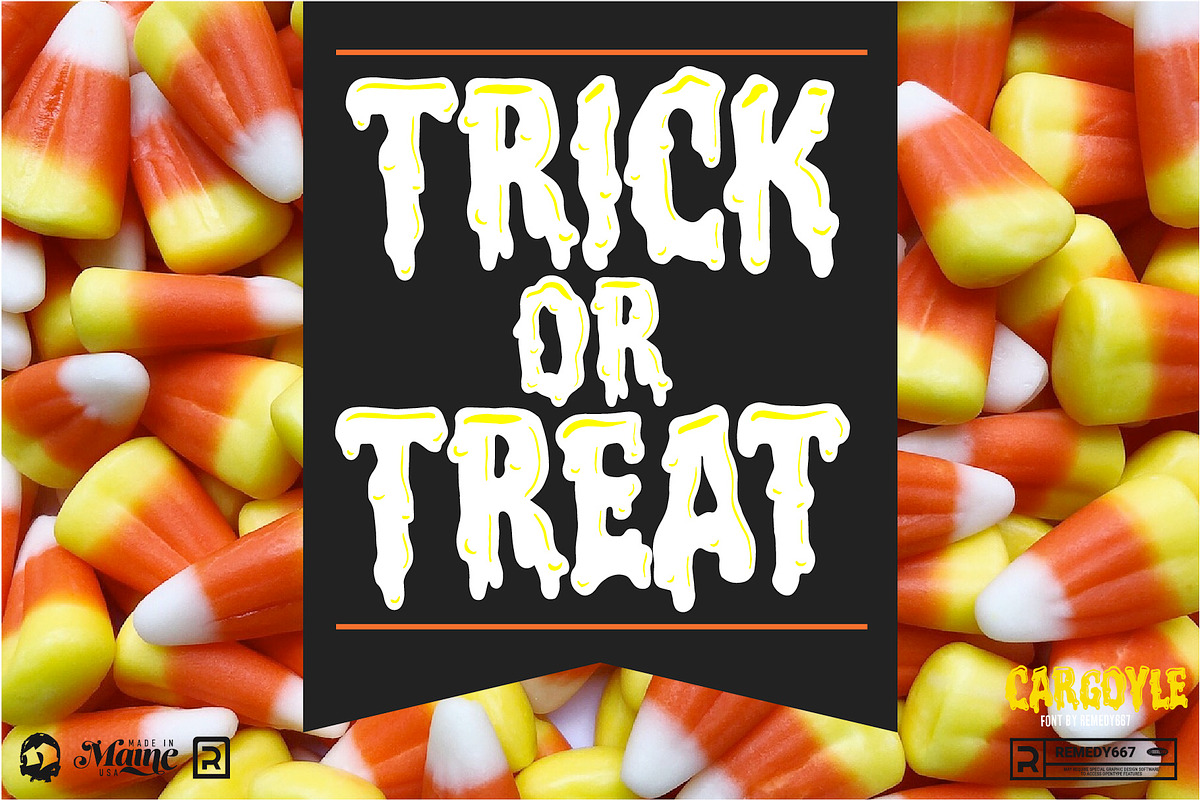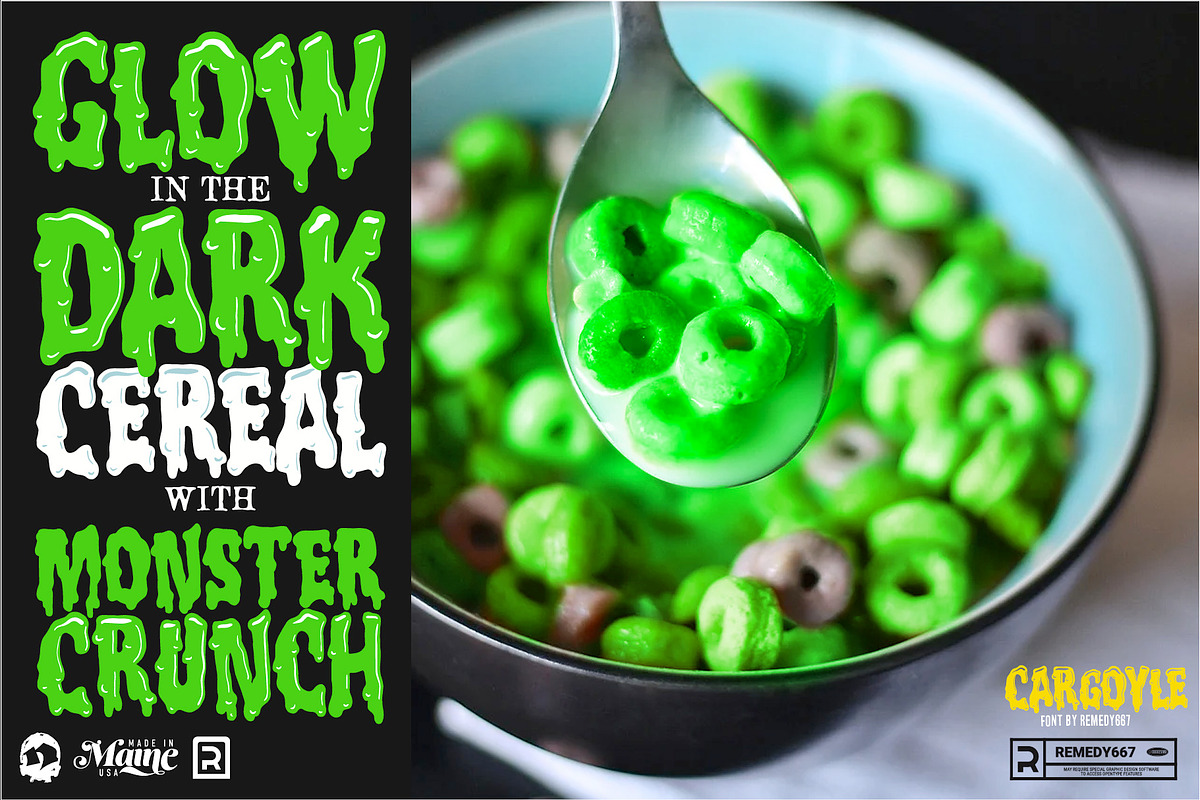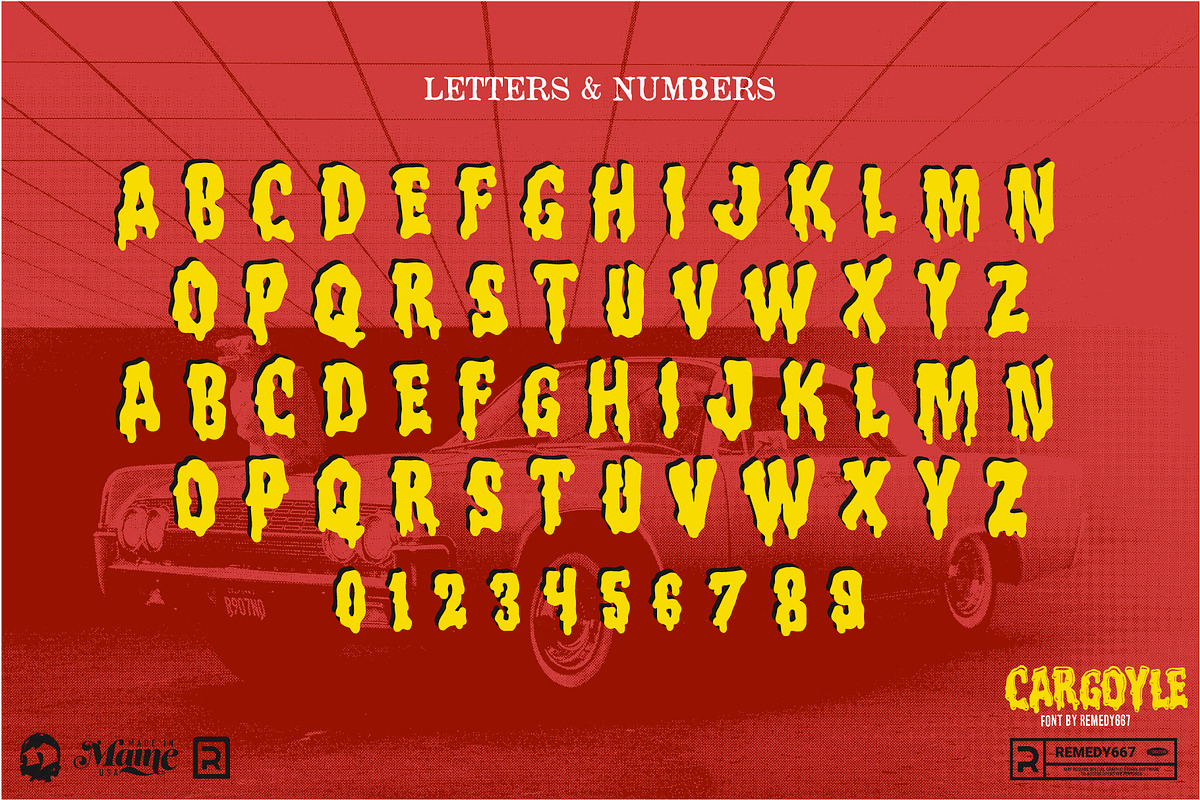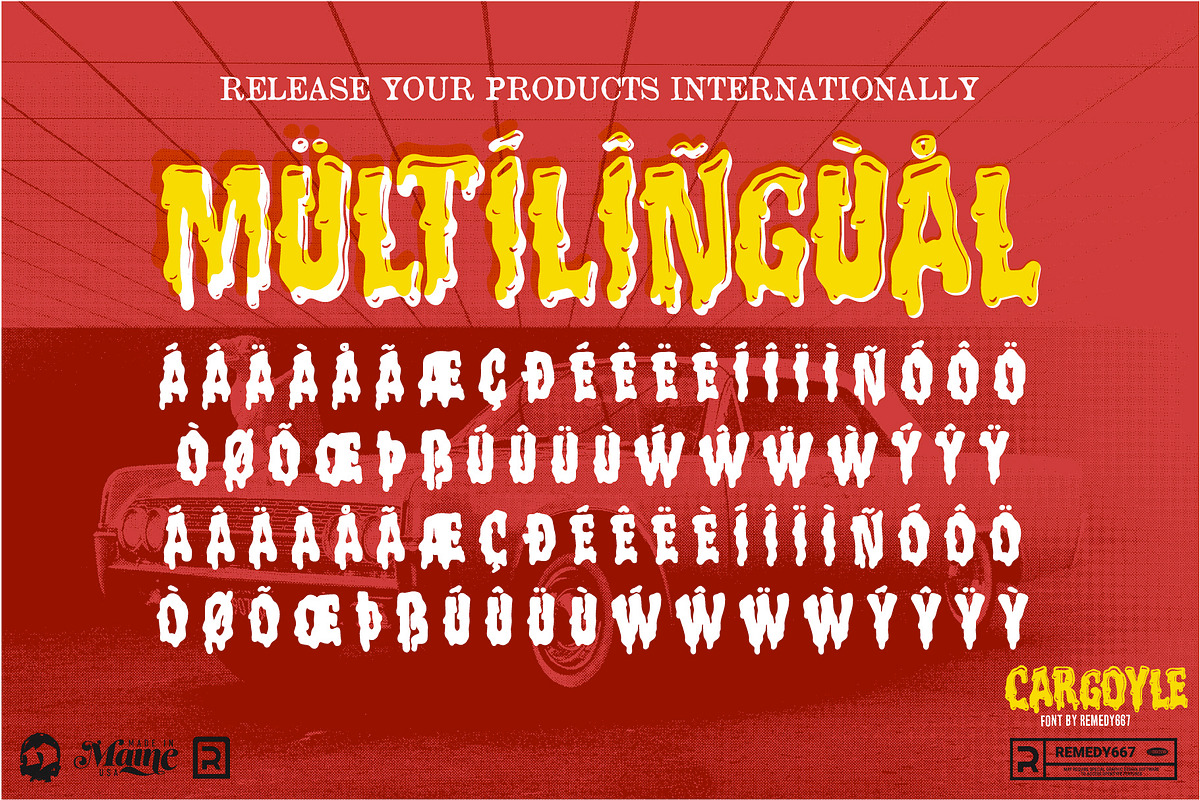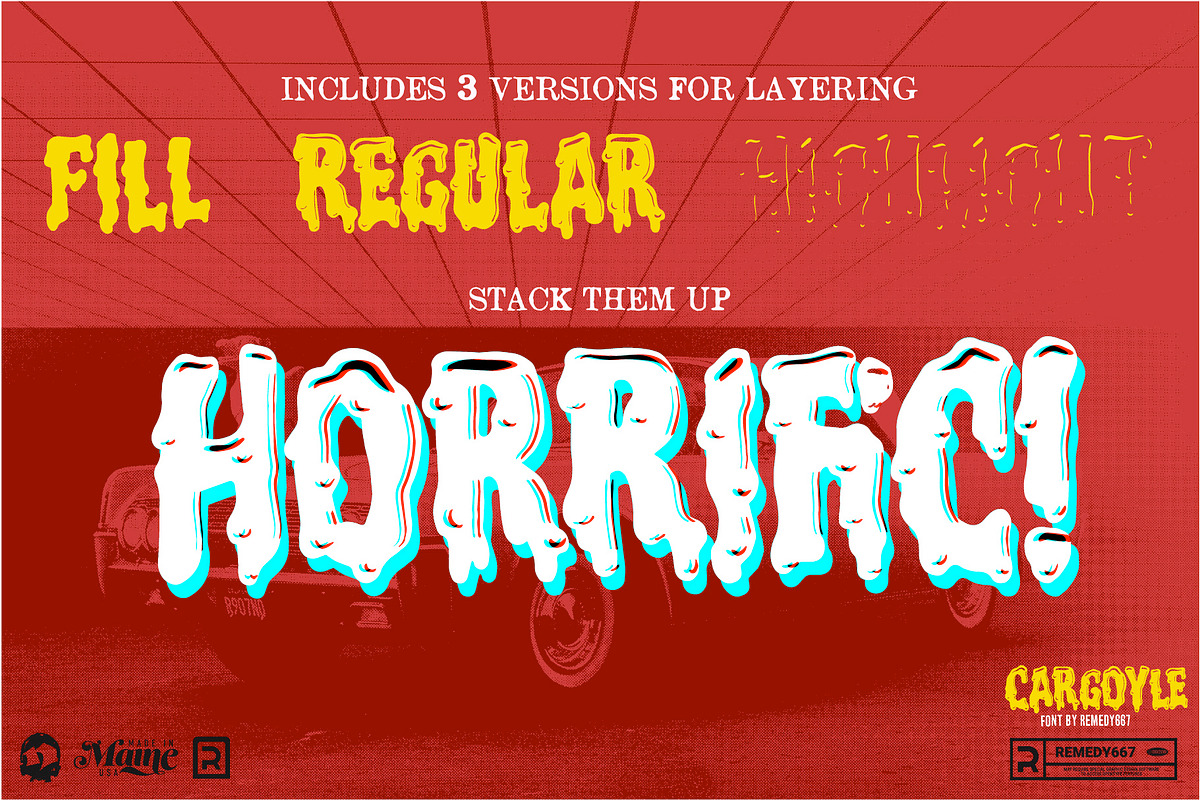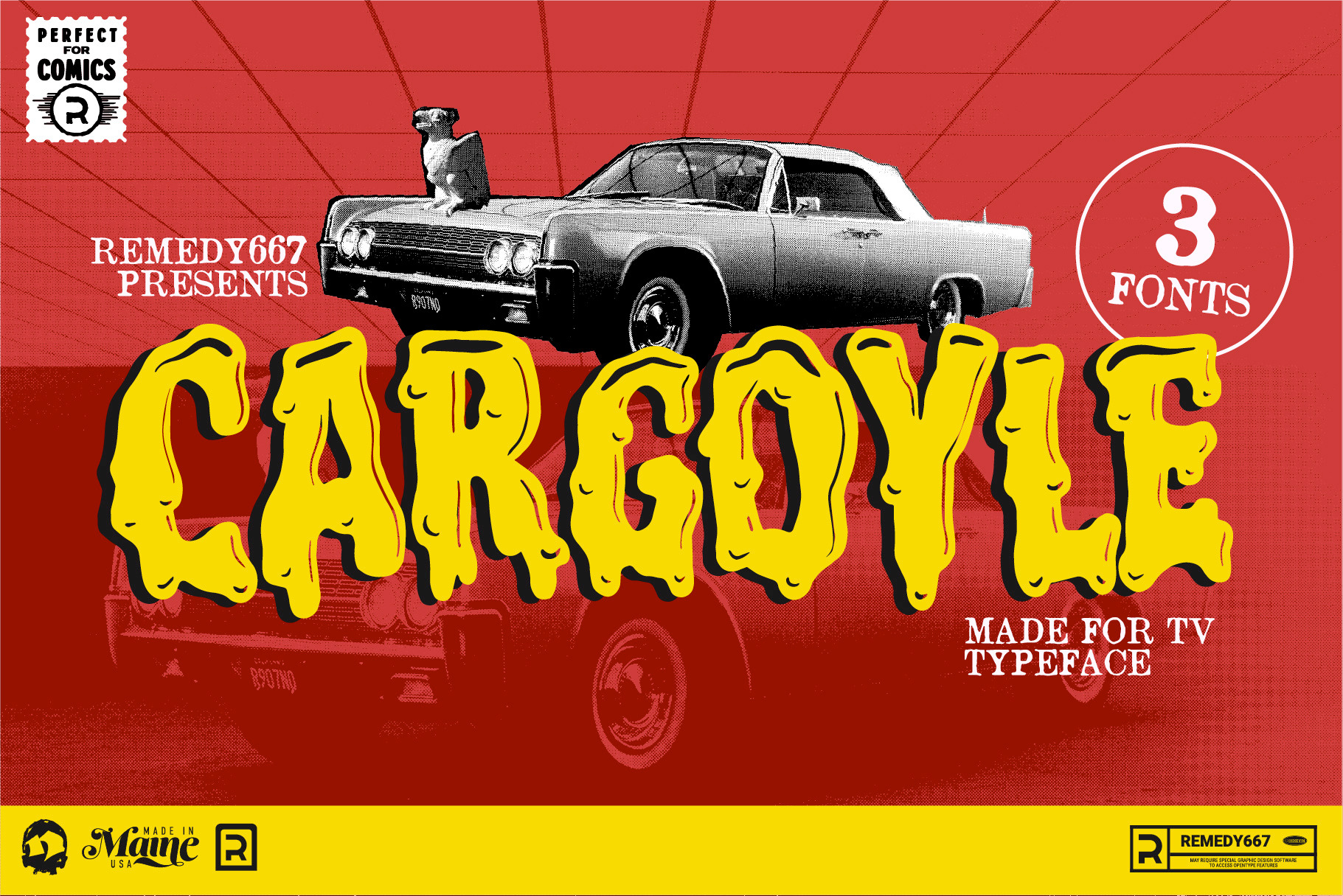
Cargoyle - Made for TV Typeface
Looking for a font that is dripping with blood and oozing with horror? Give your work that 90s teen horror feel with Cargoyle, new from Remedy667! With 3 layers to “ooze” from, this typeface is perfect for any project you’re working on. Spook up your Halloween decorations, add some thriller to your resume, add a splash of terror to your latest novel, or any other thing you can think of.
- Eliminate double letters to make your text more appealing